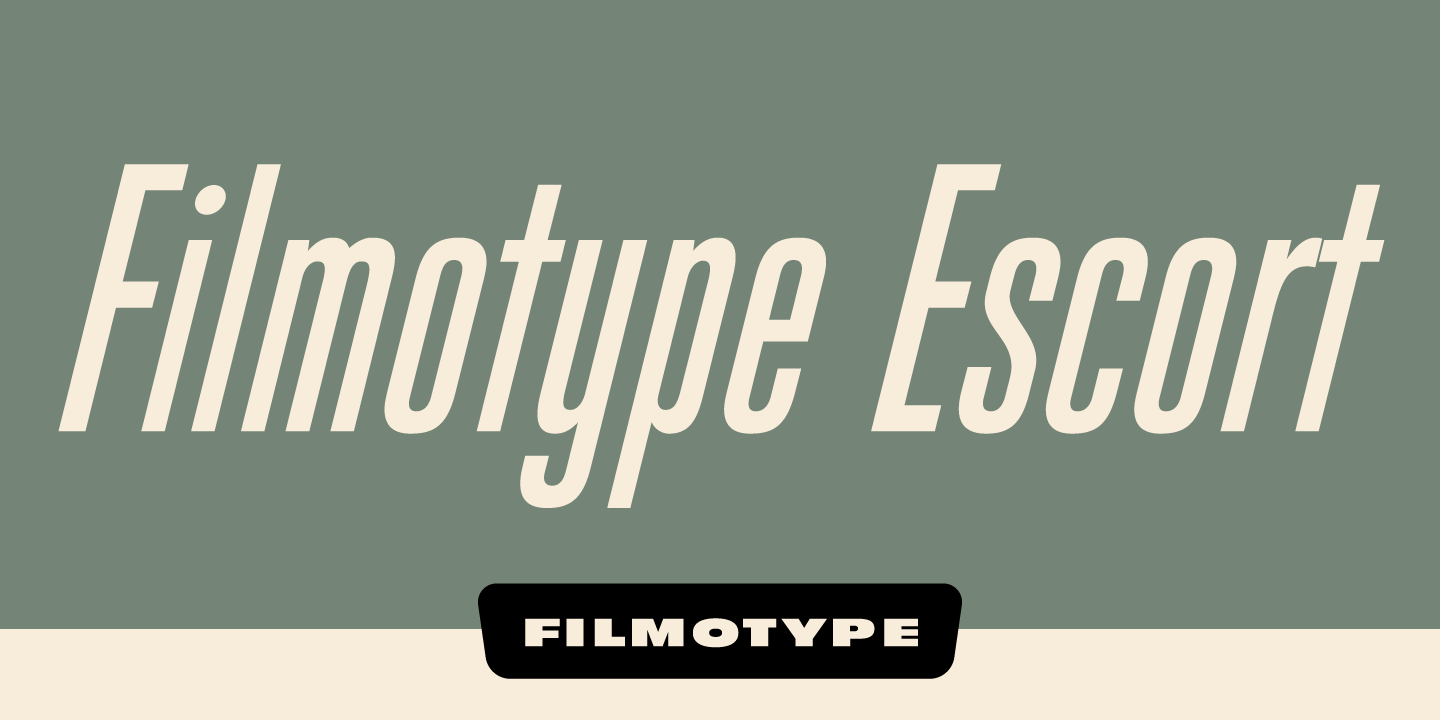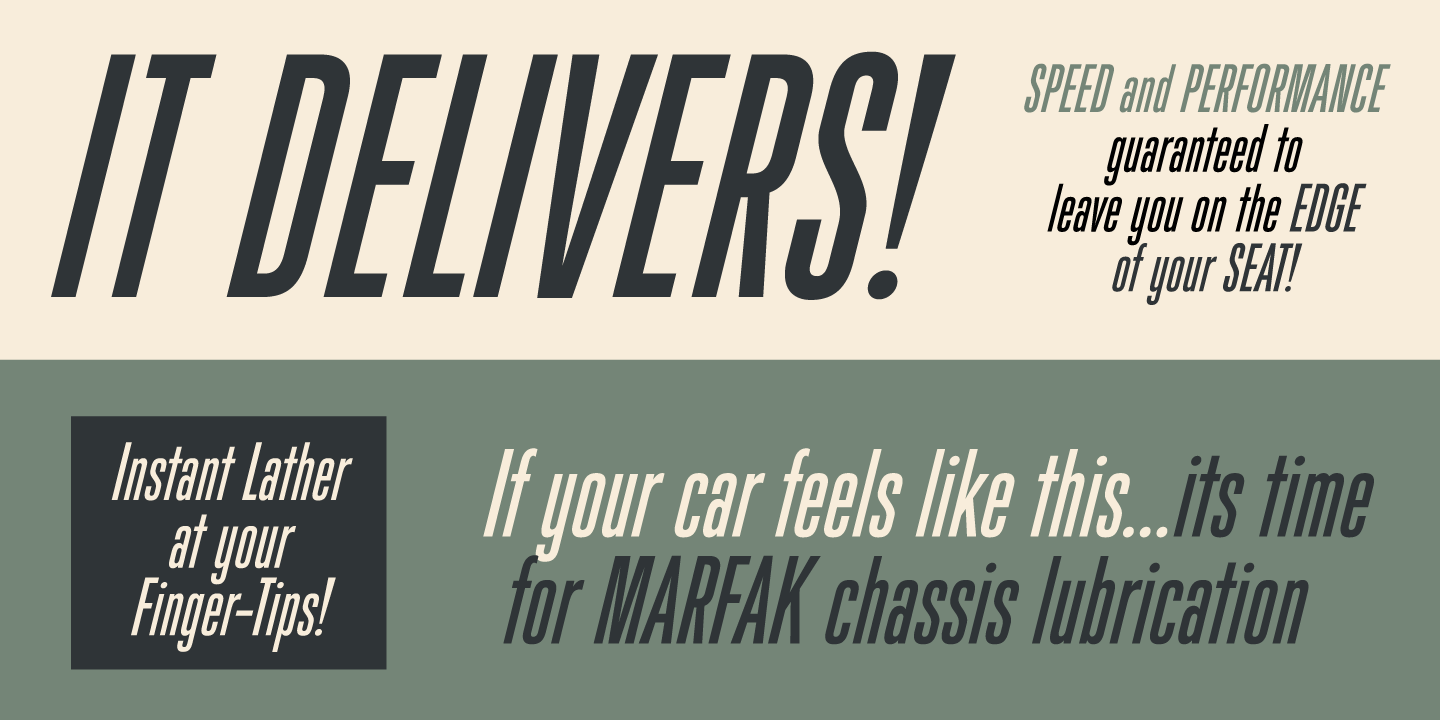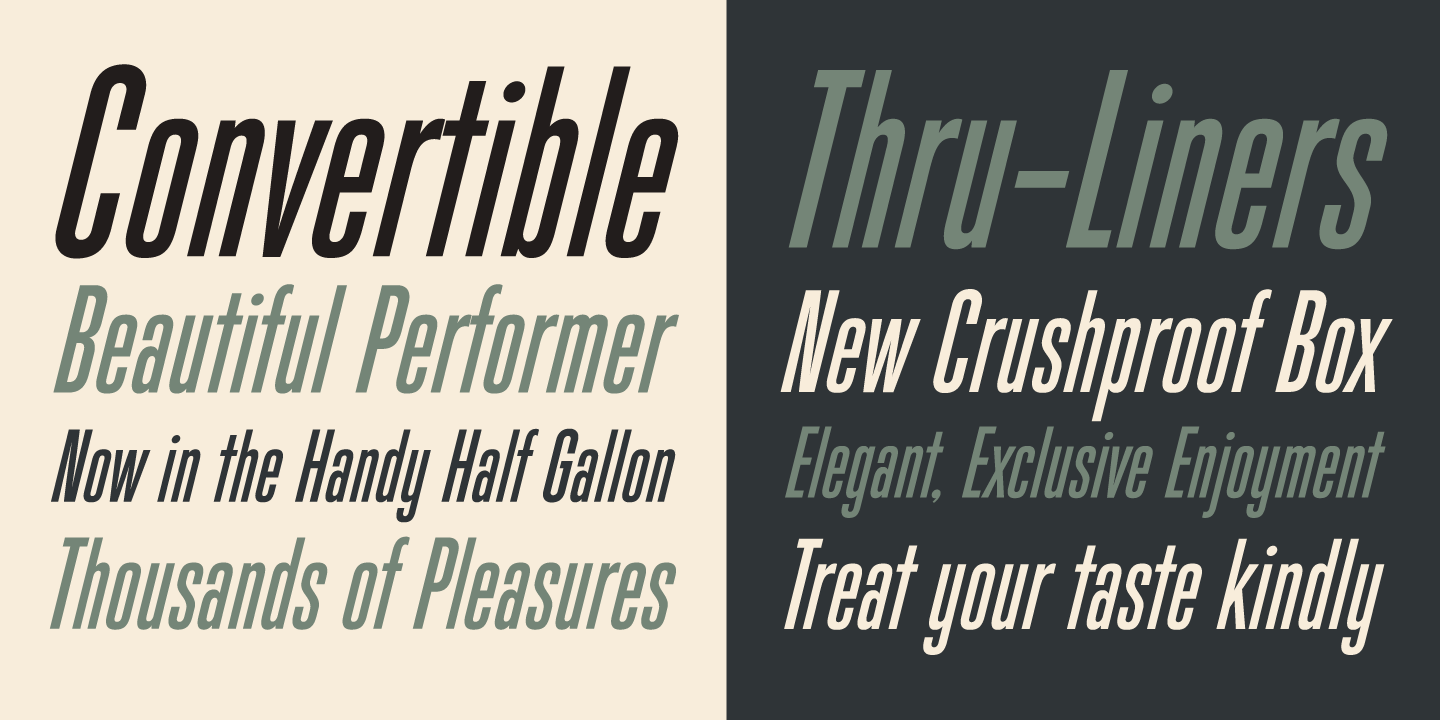
Filmotype Escort
Initially offered in the late 1960s, Filmotype Escort was released nearly 15 years after the introduction of Filmotype Giant at the request of Filmotype customers unable to oblique the Filmotype Giant font on their Filmotype machines. Remastered and expanded with exacting precision from the original filmstrips, Filmotype Escort includes a full international character complement, automatic fractionals, ordinals, and a suite of alternates in dynamic OpenType format.